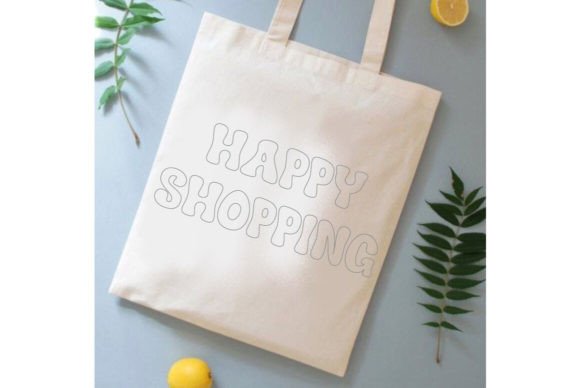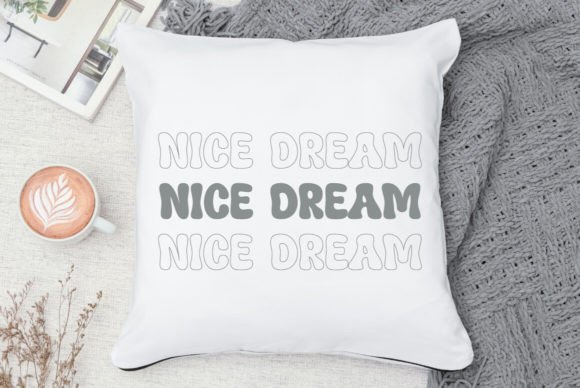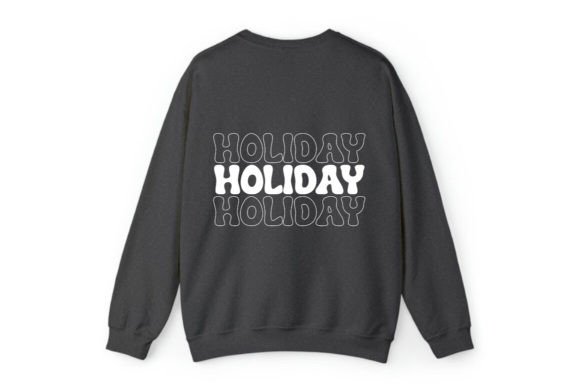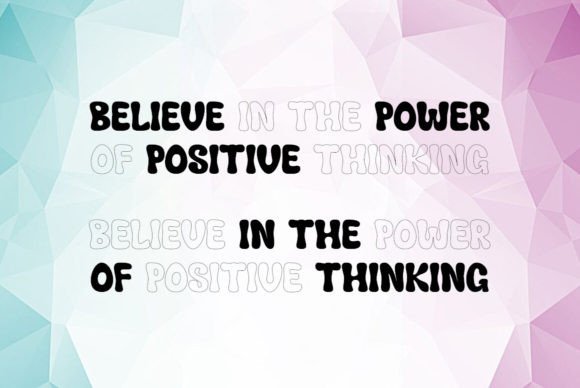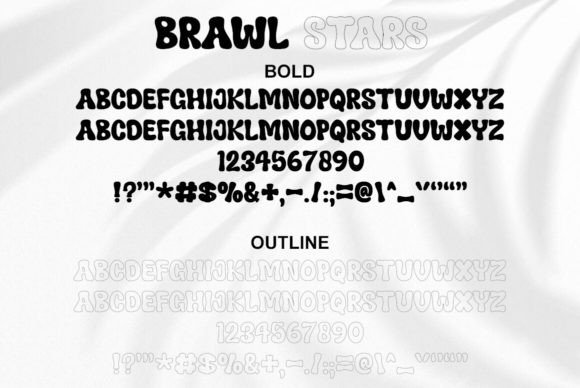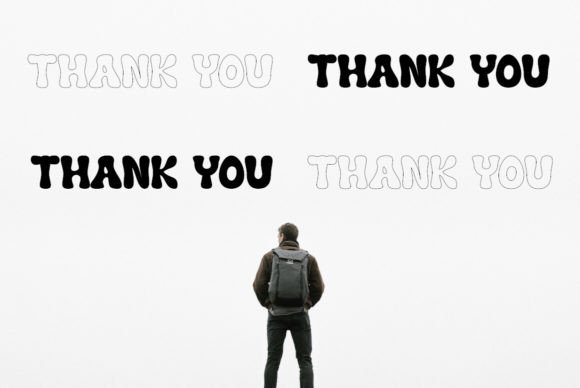
The Electrifying Power of Brawl Stars Font
Remember that moment when you stumbled upon the perfect font to elevate your design project? The thrill of discovering a typography gem that captures the essence of your creative vision is unparalleled. For designers, finding the right font can be a game-changer, and that’s exactly what Brawl Stars Font aims to deliver.
This dual-style display font is a masterclass in versatility, featuring two distinctive modes: Bolt and Outline. The Bolt style brings an electrifying spirit to your designs, while the Outline style provides a polished, contemporary charm. Whether you’re crafting bold headlines, energetic logos, or unforgettable social media content, Brawl Stars Font is the perfect companion to infuse your work with a breath of fresh life.
Brawl Stars Font Key Features
- Unique Characteristics: Custom-designed for Brawl Stars, with a bold and playful style
Brawl Stars Font Review
The Brawl Stars Font is a bold, playful font that has gained popularity among gamers and designers alike. Here’s what I think about it.
- Unique style**: The font has a distinct, cartoon-like quality that sets it apart from more traditional fonts.
- High legibility**: The font is easy to read, even at small sizes, making it perfect for use in digital applications.
- Fun and energetic vibe**: The font’s playful feel makes it ideal for use in games, apps, and other interactive experiences.
- Limited versatility**: The font’s bold, playful style may not be suitable for all types of projects, such as formal documents or professional presentations.
- Lack of subtlety**: The font’s bright, eye-catching style may be overwhelming in certain contexts, such as in long blocks of text.
The Brawl Stars Font is a fun, energetic font that’s perfect for use in digital applications, games, and other interactive experiences. While it may not be suitable for all types of projects, its unique style and high legibility make it a great choice for designers looking to add some personality to their work.
To get the most out of the Brawl Stars Font, use it for:
1. Gaming-themed designs, such as posters, flyers, or social media graphics.
2. Creating a bold, eye-catching headline or title.
3. Adding a touch of nostalgia or retro flair to your design.